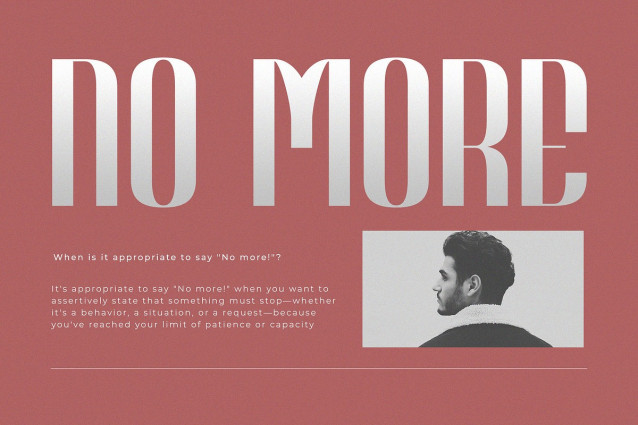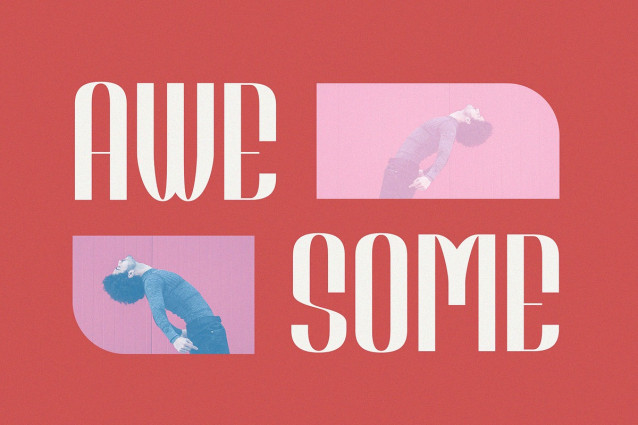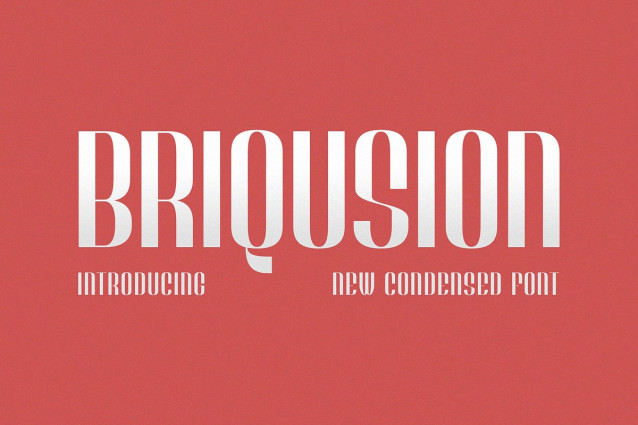
Briqusion Font
Briqusion Font is a bold and stylish condensed sans serif font that blends retro aesthetics with modern minimalism. Designed with both uppercase and lowercase characters, Briqusion features tight proportions, clean lines, and striking curves that give your design a bold personality.
This font is perfect for posters, logo designs, editorial titles, album art, fashion branding, and display headlines that demand attention with a distinctive twist.